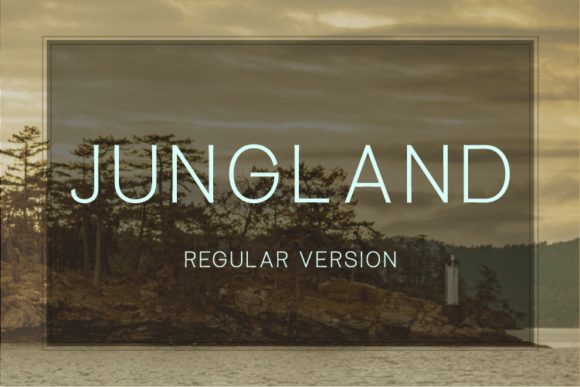
Discover the captivating allure of Jungland Font, a masterpiece of sans serif typography. Its geometric charm blends seamlessly with warmth and engagement, inviting you to craft headlines that dance with grace and quotes that whisper with emotion. The subtle imperfections of Jungland add a touch of human warmth, making your words not just readable but truly unforgettable.
Whether you're crafting a statement for your brand or sharing a thought that sets hearts aflame, Jungland Font empowers you to connect with your audience on a deeper level. Its versatility extends from headlines that command attention to short text that captivates the mind. Embrace the allure of Jungland Font and let your words soar, leaving an indelible imprint on the hearts and minds of those who encounter them.